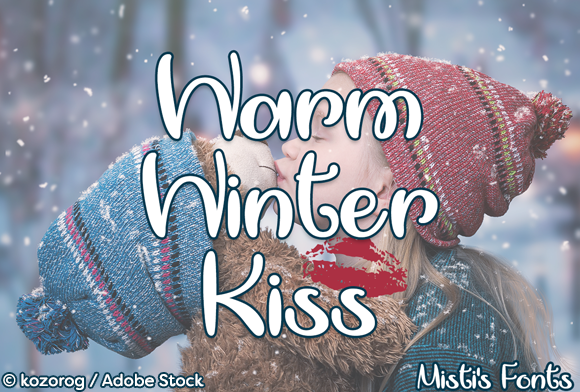
HomeScript FontsWarm Winter Kiss Font Script Fonts Warm Winter Kiss Font FacebookXPinterestWhatsApp About Warm Winter Kiss Font The Warm Winter Kiss is a friendly handlettering font that will add fun & whimsy to your projects! DOWNLOAD ON CREATIVE FABRICAThis font is sold and delivered by Creative Fabrica. Font Canyon may earn a commission if you buy through this link. People also explored Blue Elfira Font Ngabuburits Font Back to School Font Winter Story Font Qrokinex Font Ponpewd Signature Script Font Hidden Spring The Beauty Font Balinice Font 251 0 TagsWarm Winter Kiss Font Previous articleJhanety FontNext articleButterfly Kiss Font LEAVE A REPLY Cancel reply Comment: Please enter your comment! Name:* Please enter your name here Email:* You have entered an incorrect email address! Please enter your email address here Website: Save my name, email, and website in this browser for the next time I comment. Personal Use Free Goodline Font Personal Use Free Read more about this font Bright Dreams Personal Use Free Read more about this font Dead Block Personal Use Free Read more about this font DoooLA Personal Use Free Read more about this font BLOG How to Cut Any Font on Cricut: Convert a Font to SVG (Free) Turn any font into a clean SVG so it cuts crisp on Cricut - a quick 3-step workflow using a free font-to-SVG tool. Exploring Font Trends Free Fonts Risk: Why Free Fonts Can Be Dangerous for Designers Best Fonts for T-Shirt Design – Top 2025 Picks